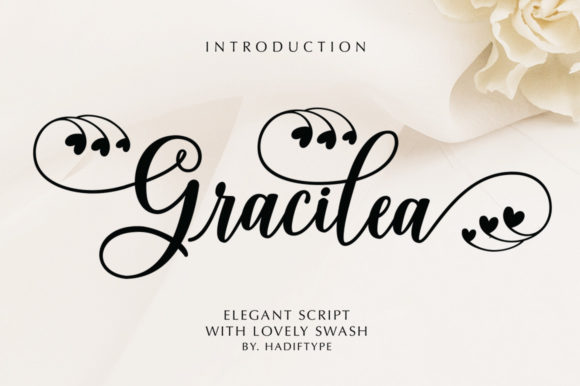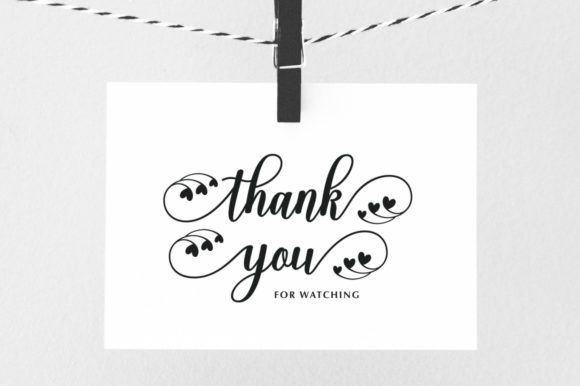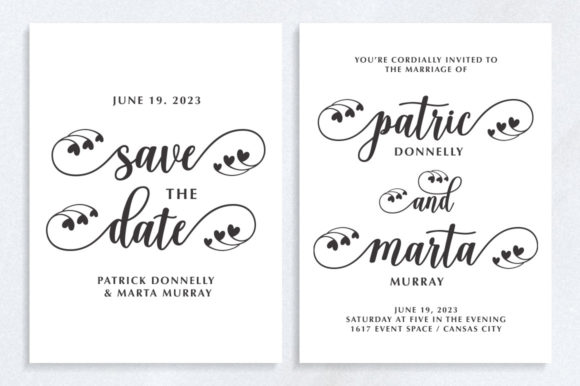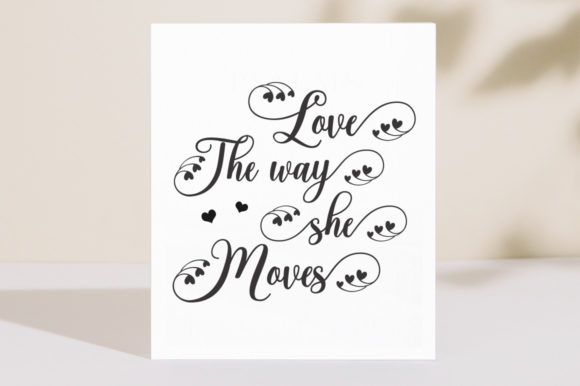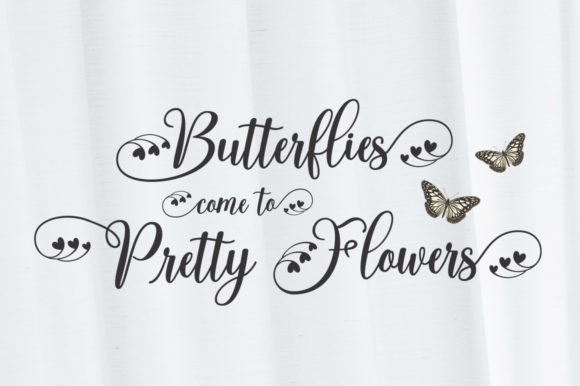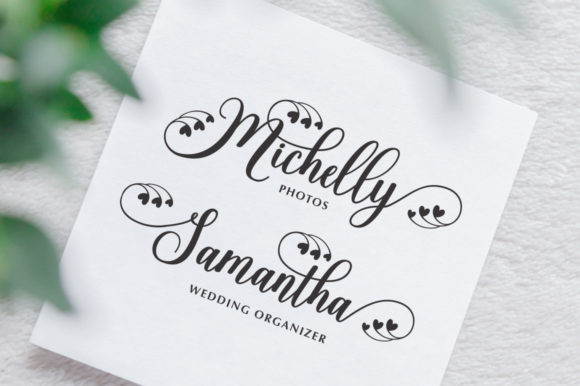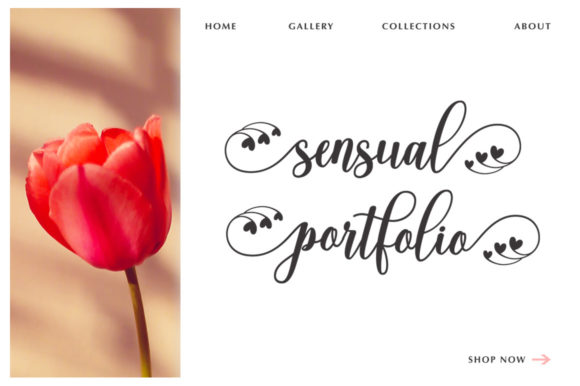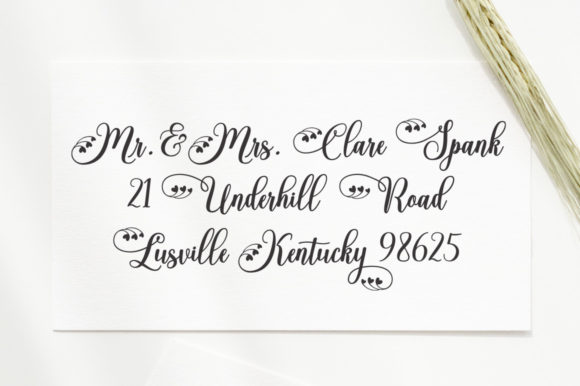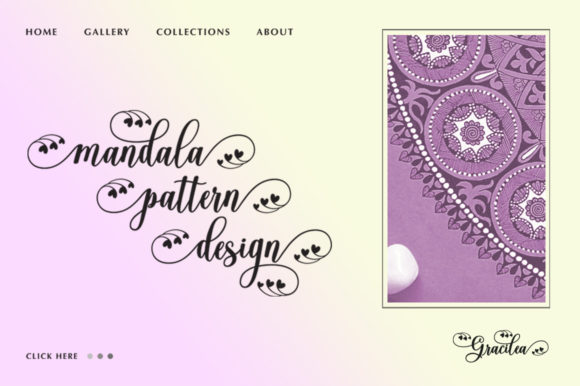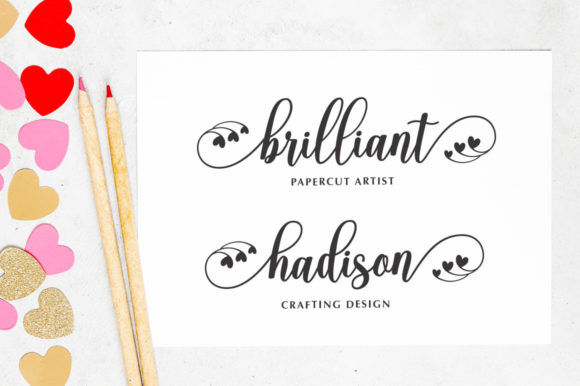
Gracilea Script Font
Gracilea Script is an enchanting handwritten font. This versatile script font has a wide spectrum of applications ranging from greeting cards to headlines. Gracilea Script is PUA encoded which means you can access all of the glyphs and swashes with ease!